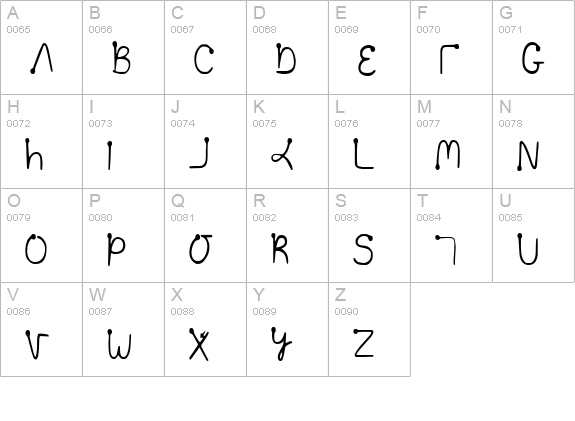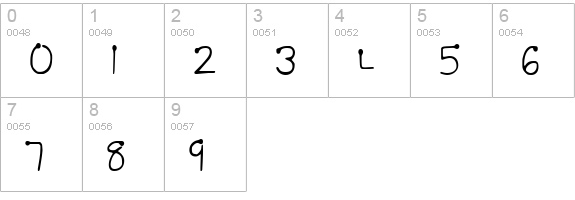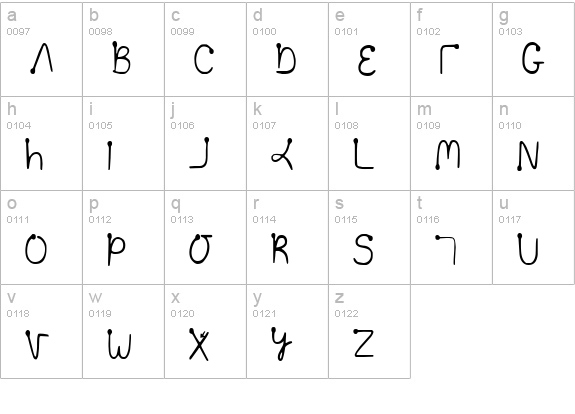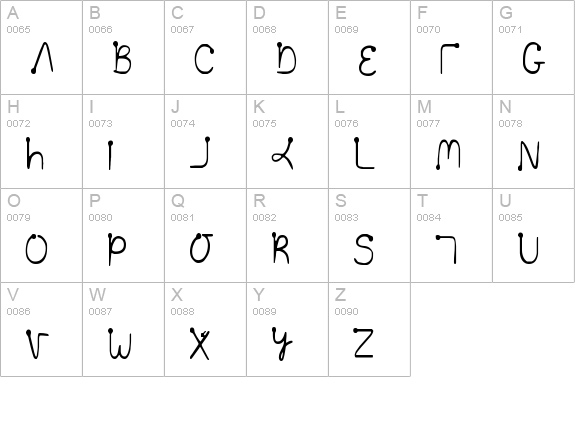
The Too lazy to practice font is a whimsical and playful typeface that perfectly captures the essence of carefree creativity. Its quirky and irregular letterforms exude a sense of relaxed charm, making it the ideal choice for projects that call for a fun and lighthearted touch. Whether you're working on a children's book, a greeting card, or a party invitation, this font will add a delightful flair to your designs. Best of all, the Too lazy to practice font is completely free to download at FontsMarket.com. Simply visit the website and grab this unique typeface to add a touch of whimsy to your next project. Embrace your playful side and let the Too lazy to practice font bring a smile to your audience's face.